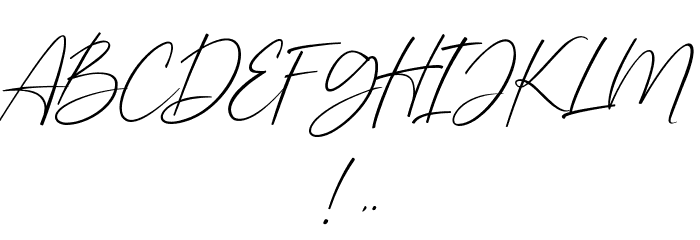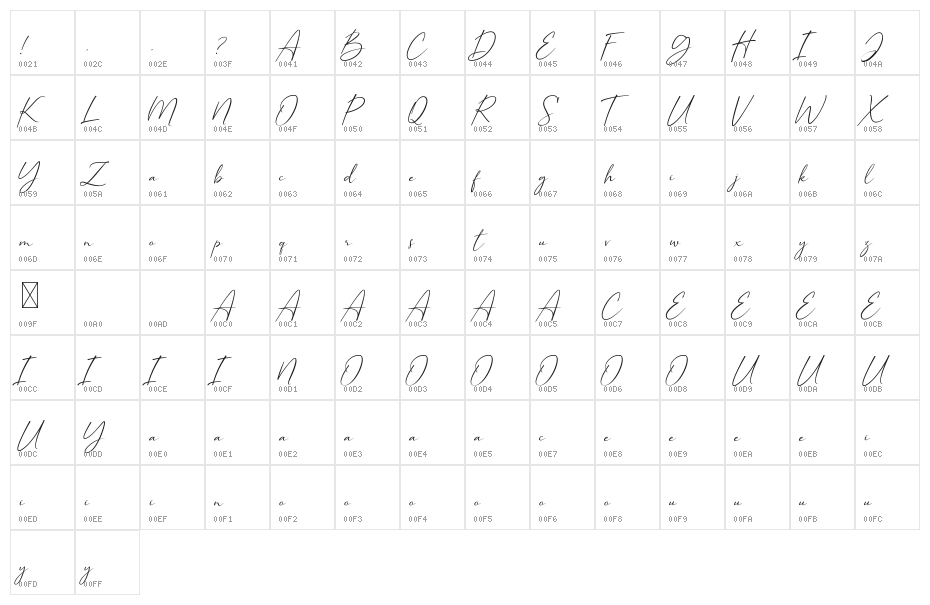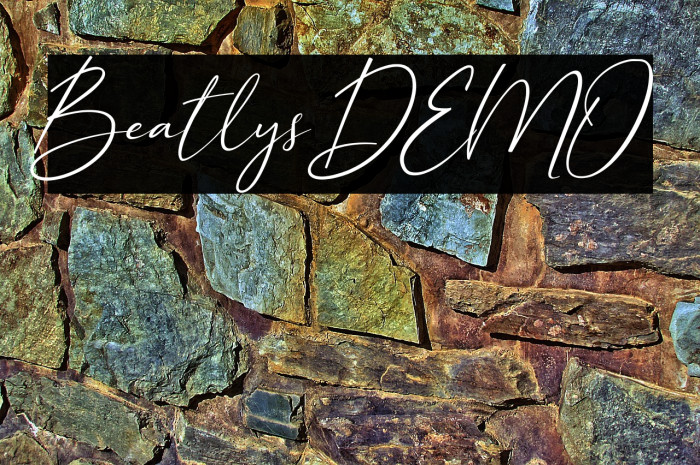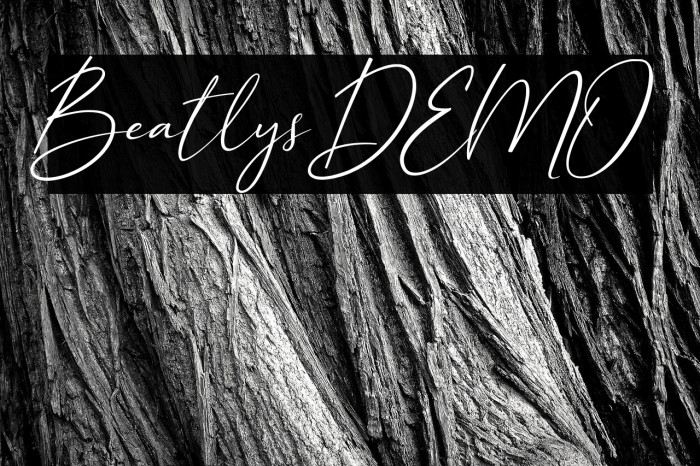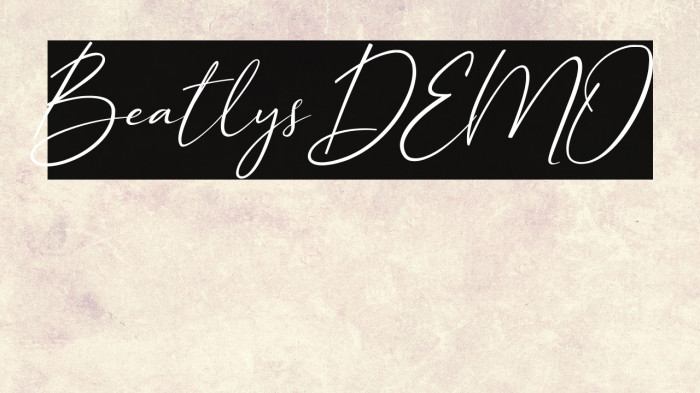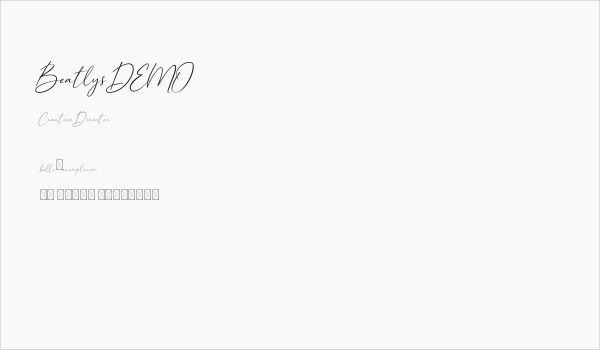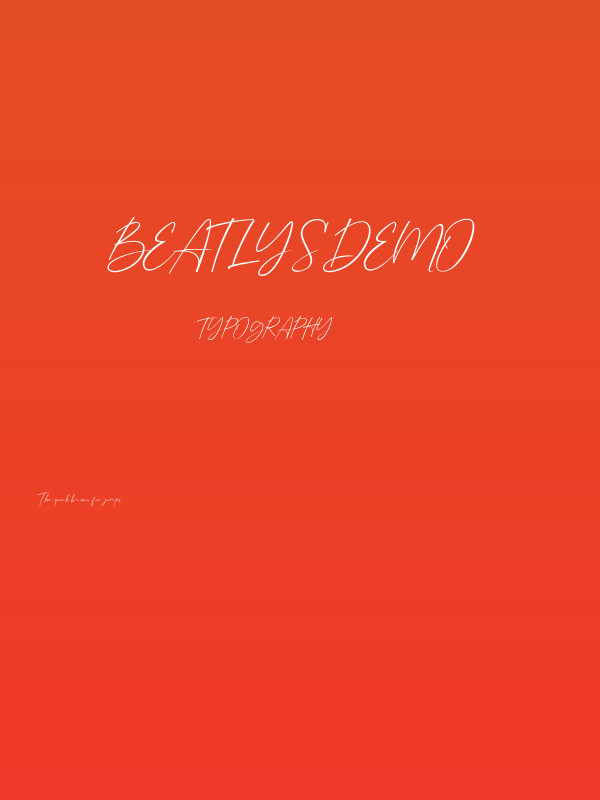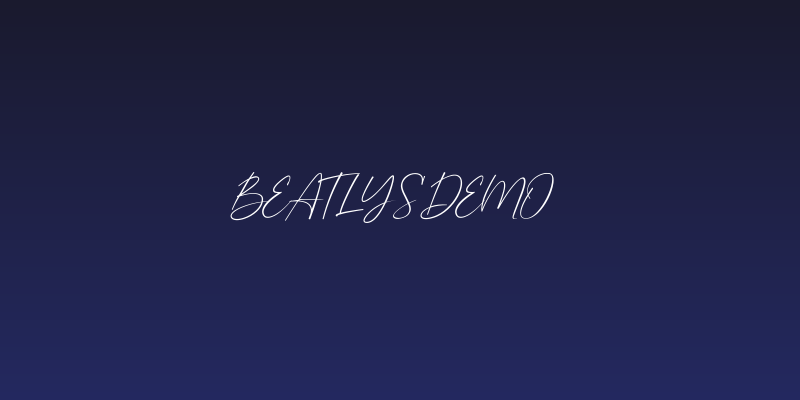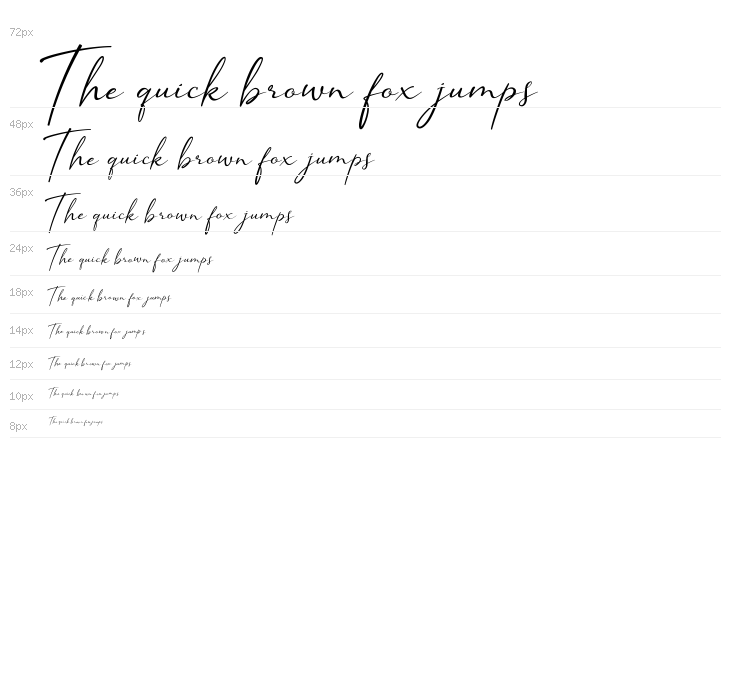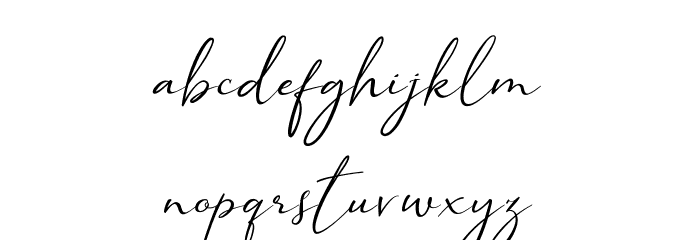
Beatlys DEMO Font
Beatlys DEMO Description
This font exudes a modern, elegant script style with a handwritten touch. The uppercase letters are bold and sweeping, with a dynamic flow that captures attention. The lowercase letters maintain a delicate and refined appearance, offering a nice contrast to the uppercase. The characters are slightly slanted, enhancing the script-like quality. The strokes are smooth and fluid, with a consistent thickness that adds to the overall sophistication. This font is perfect for projects that require a personal and artistic touch, such as invitations, branding, and creative designs.
Overall StyleModern, Elegant
Use CaseHeadlines, Logos, Invitations
Proposed ProjectsIdeal for wedding invitations, branding, logos, and artistic projects.